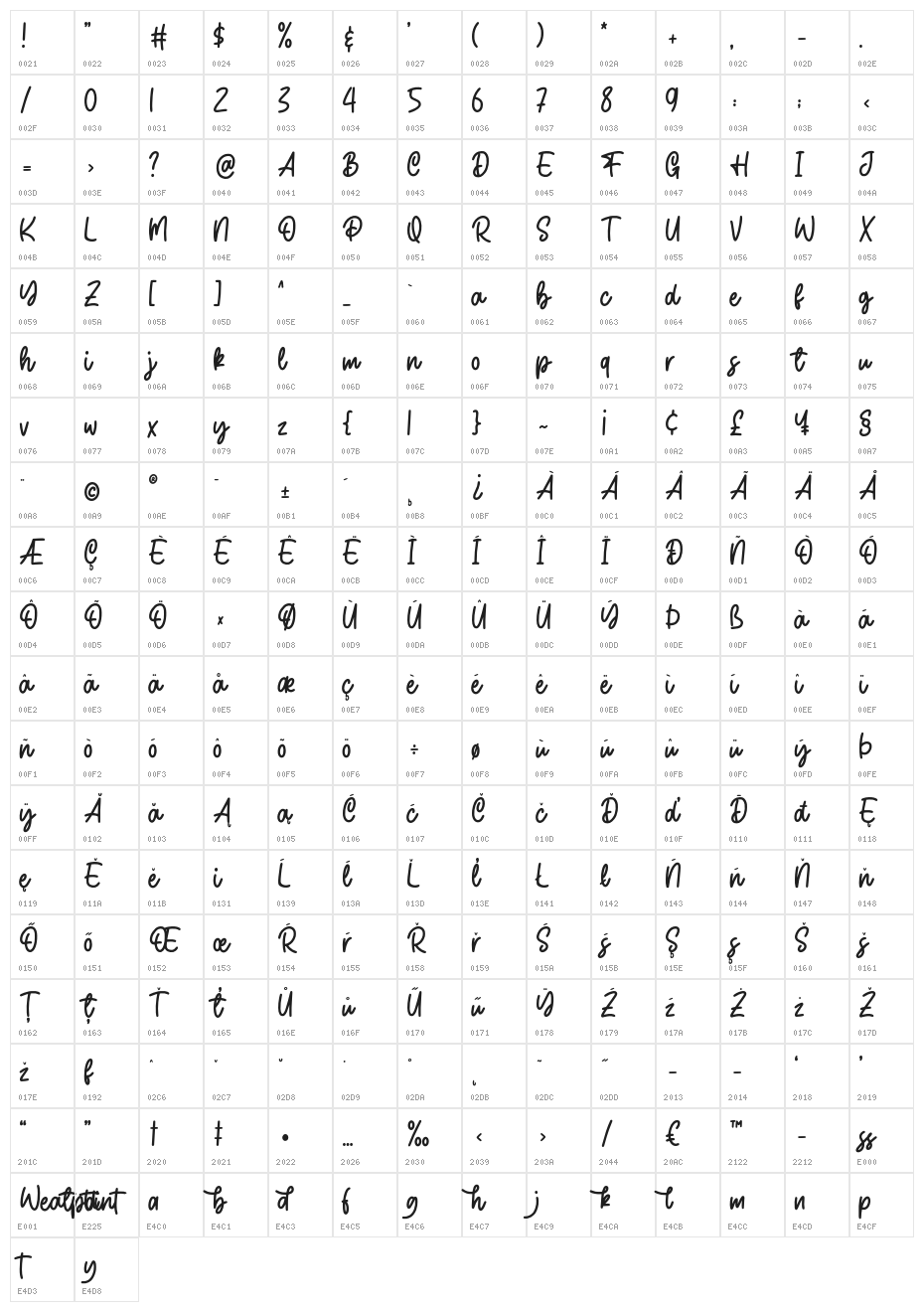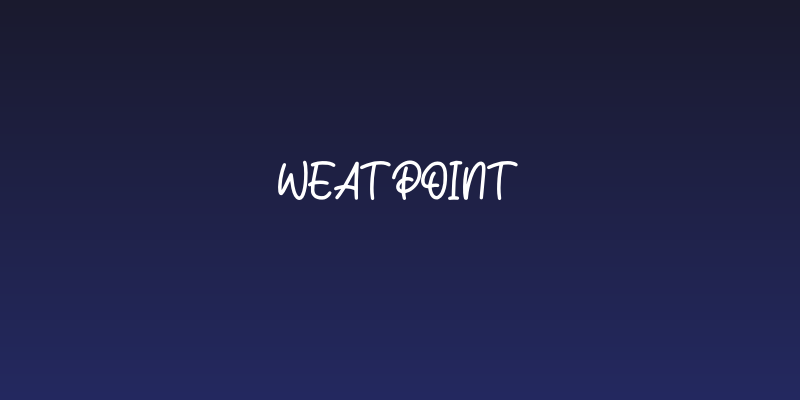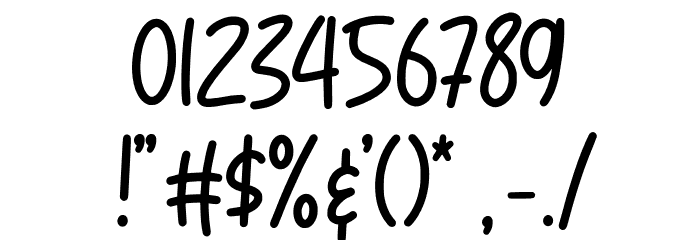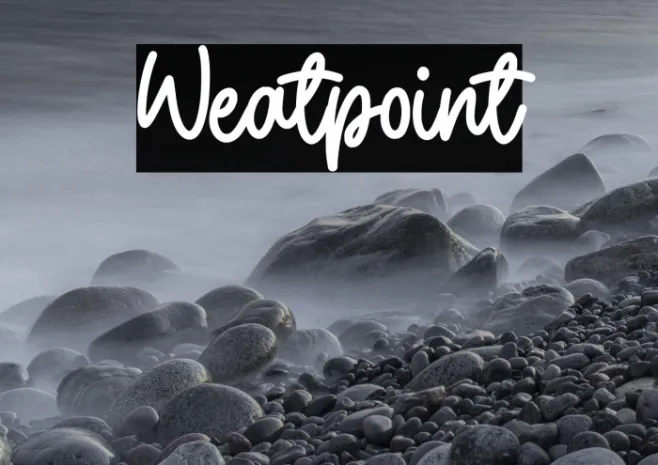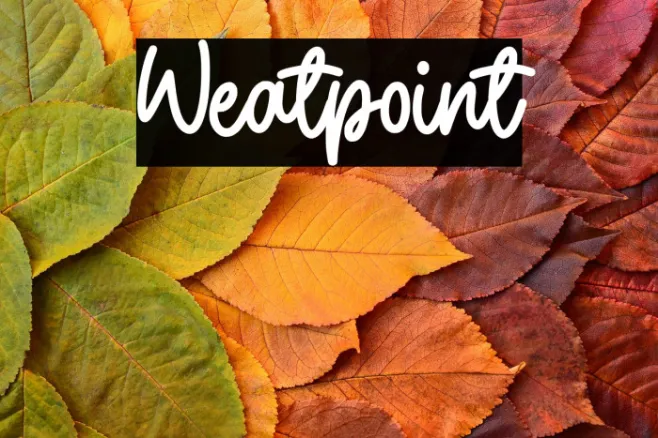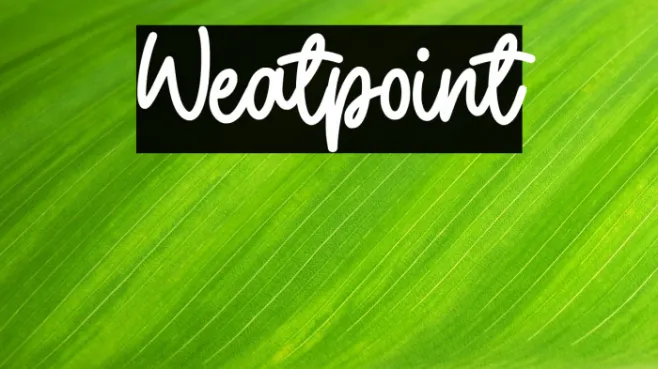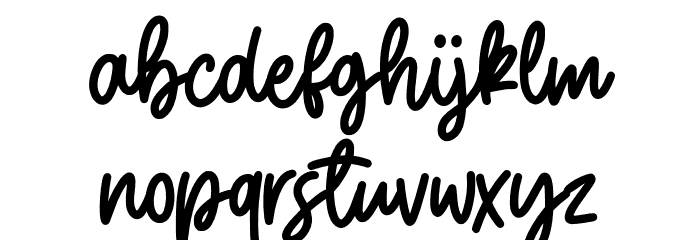
Weatpoint Font
Weatpoint Description
This font features a playful and casual handwritten style, characterized by its smooth, flowing curves and slightly irregular letterforms. The uppercase and lowercase letters maintain a consistent style, with rounded edges and a slight slant that adds to its informal appearance. The numerals and special characters are designed to match the overall aesthetic, ensuring a cohesive look across all text. Its friendly and approachable design makes it suitable for a variety of creative projects.
| Use Case | Logos, Headlines, Informal text |
| Proposed Projects | Ideal for greeting cards, invitations, personal branding, and social media graphics. |